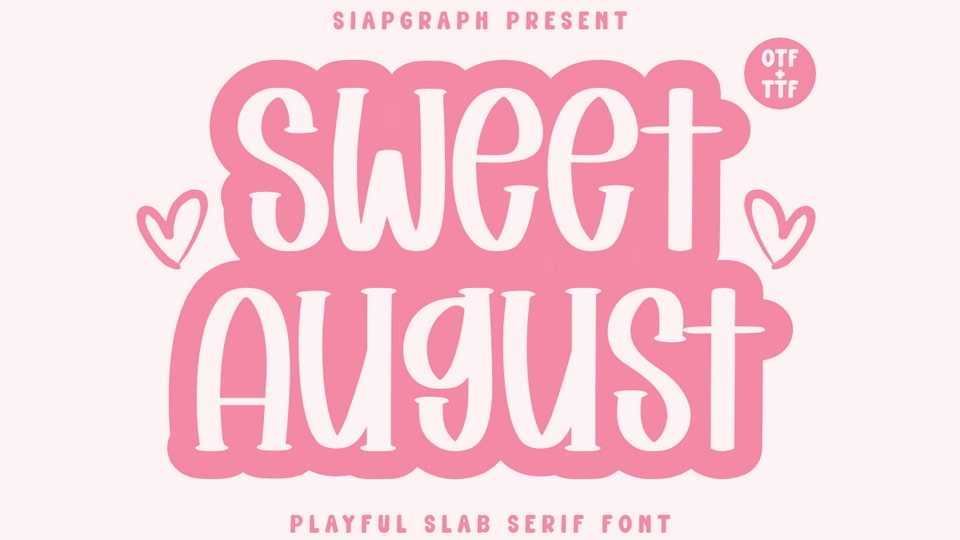
Download Sweet August font, a playful, rounded slab‑serif typeface that radiates cuteness and positivity—perfect for cheerful prints, pastel‑themed crafts, and anything that needs a dash of sweet charm.
Designer: SiapGraph